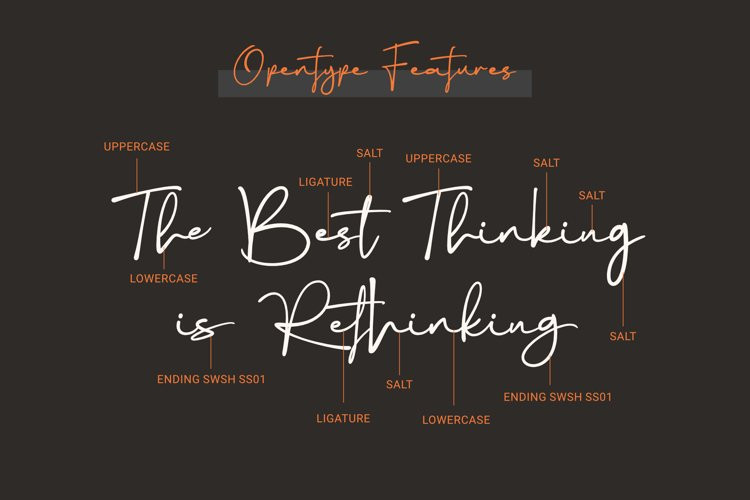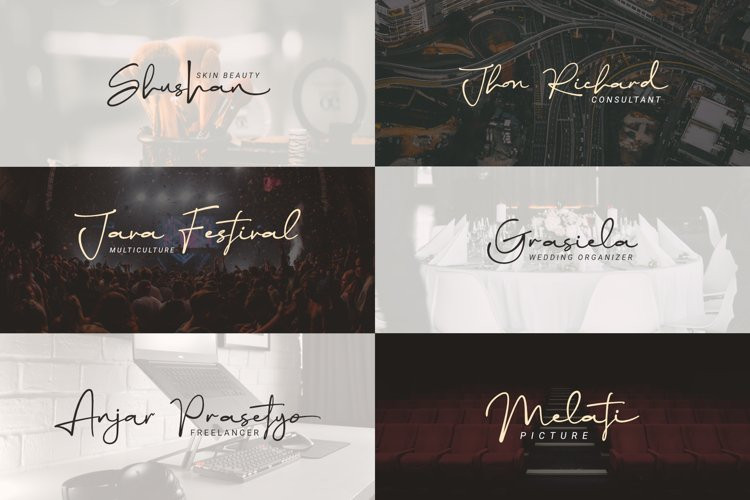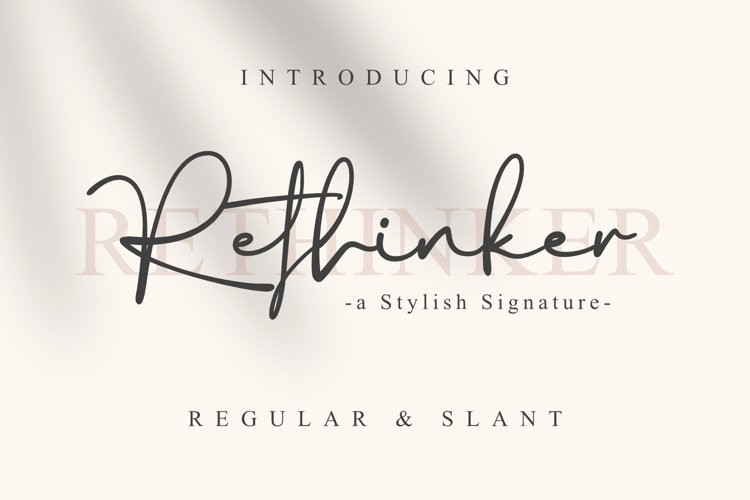
Rethinker Font
Rethinker FontRethinker is a Stylish Signature font with natural strokes, I’ve seen a lot of brand new ones appear in the last few years. Given the company’s needs, branding is one of the important things to show identity so that it is easily recognizable. along with the many demands of the market to design Logos with Signature style, Rethinker is the right answer and is very suitable for classy BRANDING!.
This font will produce a perfect design because there are 2 styles, namely Regular and Slant Style which is equipped with Stylistic Alternate, Ending SWSH, and Ligature so that there are many variations of the actual hand lettering effect (can be seen in the presentation image).